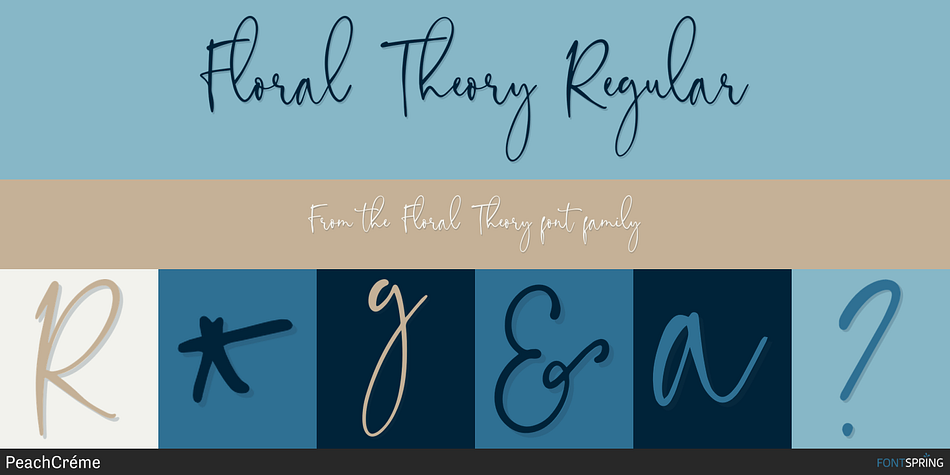
Floral Theory Regular
Floral Theory is a script font family. This typeface has two styles and was published by PeachCréme.
"Floral Theory" is a crème de la crème modern calligraphy font with sophisticated messy ink accents. It is perfect for branding, packaging design.
"Floral Theory"  includes full set of lovely uppercase and lowercase letters, multilingual symbols, numerals, punctuation and ligatures. All lowercase letters include beautiful and unique (each letter has own "unpatterned" ending) beginning and ending swashes. Also, includes following multilingual symbols
The swashes are called alternative style. For example, letter "a" with beginning and ending swashes are alternative style for "a". In order to access you need them you need to open Glyphs panel.